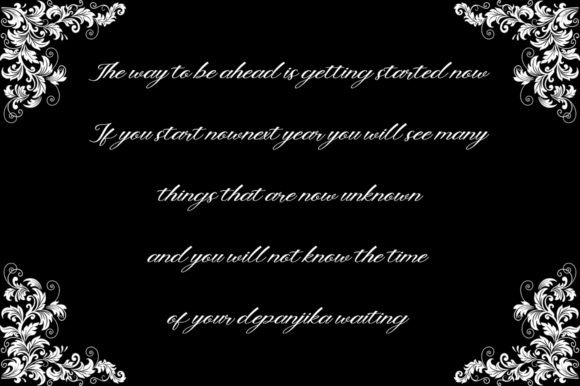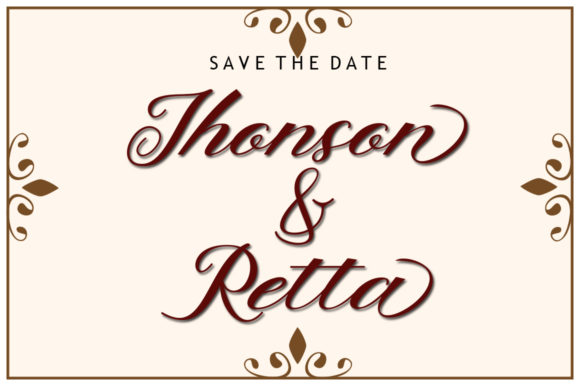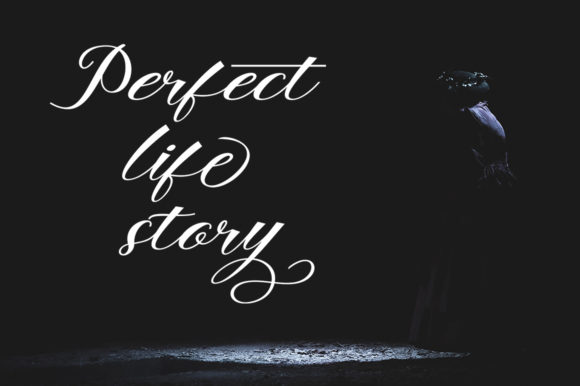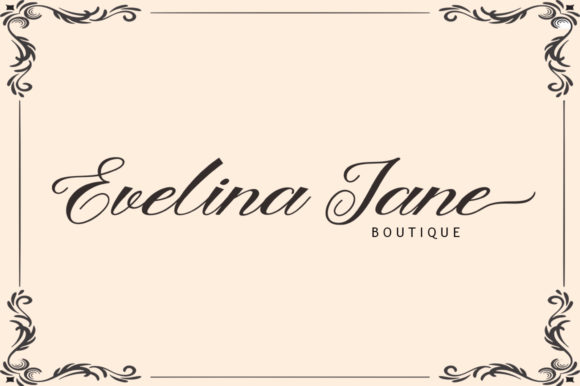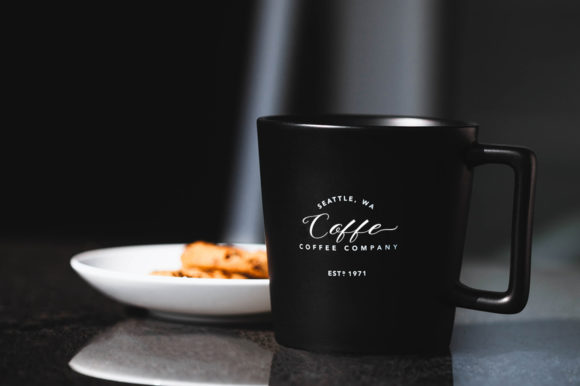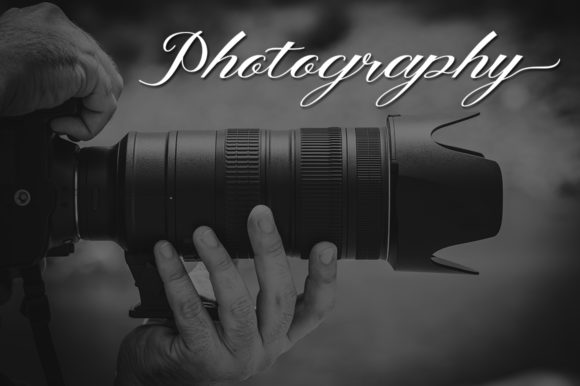
The Perfect Script: Unleashing the Beauty of Authenia Script Font
As a designer, there’s nothing quite like the thrill of creating something that transports your audience to a different era. Whether it’s a vintage-inspired advertisement or a romantic novel cover, the right font can evoke emotions and set the tone for the entire piece. For me, that font is often the Authenia Script Font, with its elegant, flowing script that adds a touch of sophistication to any design.
Authenia Script Font is a high-quality script font that’s perfect for formal applications, from invitations and labels to menus and logos. Its classic style is both timeless and versatile, making it a valuable addition to any designer’s toolkit. Whether you’re working on a fashion brand, a makeup label, or a romantic novel, Authenia Script Font is sure to bring a touch of elegance and refinement to your design.
Authenia Script Font Key Features
- Unique Characteristics: Authenia Script Font features a beautiful, elegant script style with flowing connections and subtle flourishes, making it perfect for formal invitations, wedding stationery, and other special occasions.
- Font Style: The font has a classic, timeless feel with a mix of formal and informal elements, making it versatile for use in both professional and personal projects.
Authenia Script Font Review
I recently had the chance to work with the Authenia Script Font, and I must say it’s a beautiful addition to any design project. ✨ The elegant, handwritten feel of this font makes it perfect for creating a sophisticated and elegant look. Whether you’re designing a wedding invitation, a logo, or a packaging label, Authenia Script Font is sure to impress.
- ✨ Highly legible: The font is easy to read, even at smaller font sizes.
- ✨ Versatile: Authenia Script Font can be used for a variety of design projects, from formal to informal.
- ✨ Unique: The font’s handwritten feel adds a personal touch to any design.
However, there are a few limitations to consider. ⚠️ One of the main drawbacks is that the font can be a bit difficult to customize. The default settings can be quite restrictive, which may limit your ability to make significant changes. Additionally, some users may find the font to be a bit too ornate, which can make it difficult to read in certain situations.
Overall, I would say that the Authenia Script Font is a solid choice for designers looking to add a touch of elegance to their projects. While it may have some limitations, the benefits far outweigh the drawbacks. If you’re looking for a beautiful, handwritten font that’s sure to impress, Authenia Script Font is definitely worth considering.
Tips for Getting the Most Out of Authenia Script Font
For best results, pair the Authenia Script Font with a clean and simple font, such as Arial or Helvetica. Use it sparingly to add emphasis and visual interest to your design. Experiment with different font sizes, colors, and combinations to find the perfect balance.
The Authenia Script Font is ideal for:
- Special occasion cards and gift tags
- Branding and logos for creative businesses
- Wedding and event signage